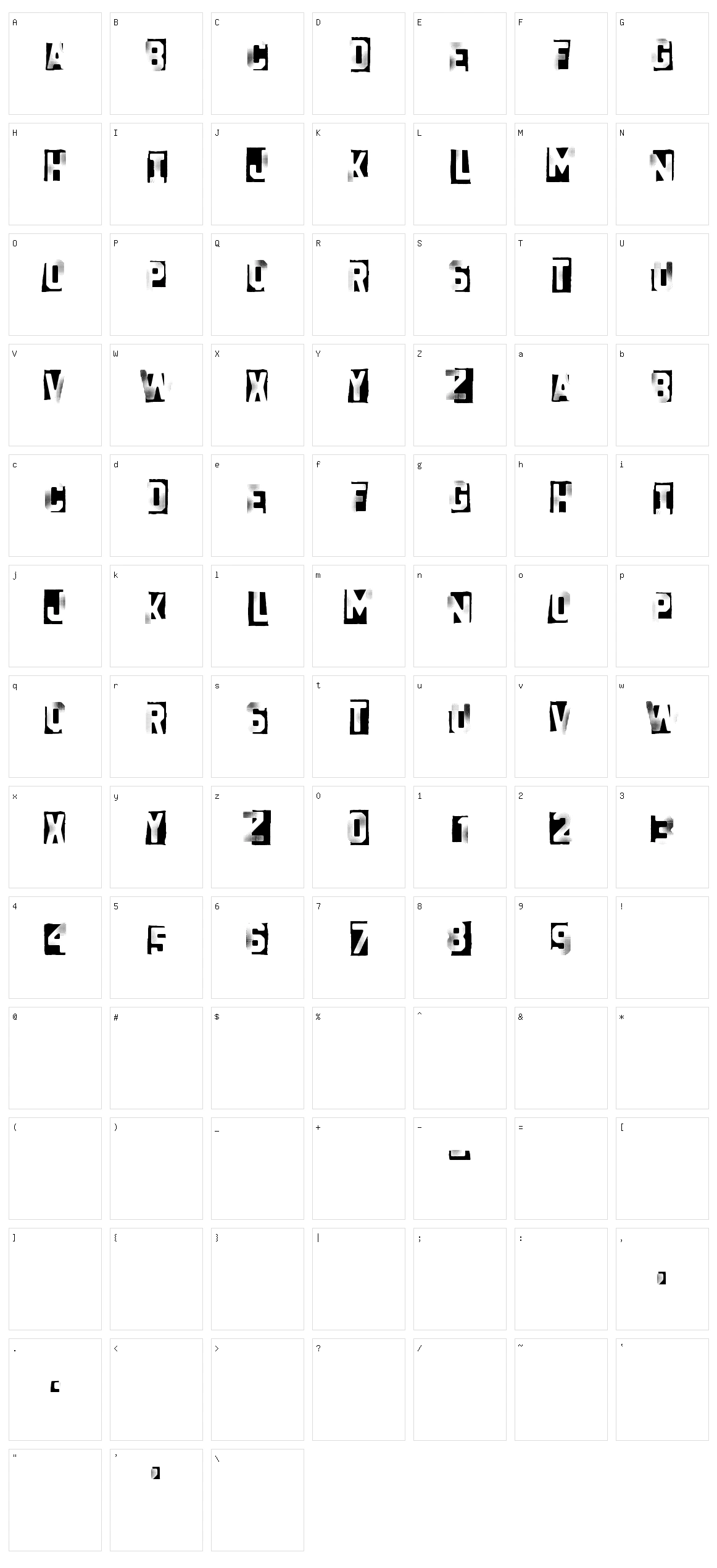
The free font Dixociative is carefully designed by imagex, showcasing a thoughtful balance of creativity and usability and falls under the Distorted font style. When you download the ZIP file, it contains only 78.93 KB of font files, making it lightweight and quick to download. Please review the license details below to understand permitted usage and distribution rights. If license information is not available, we recommend using this font for personal projects only or contacting the author directly for commercial usage permissions.